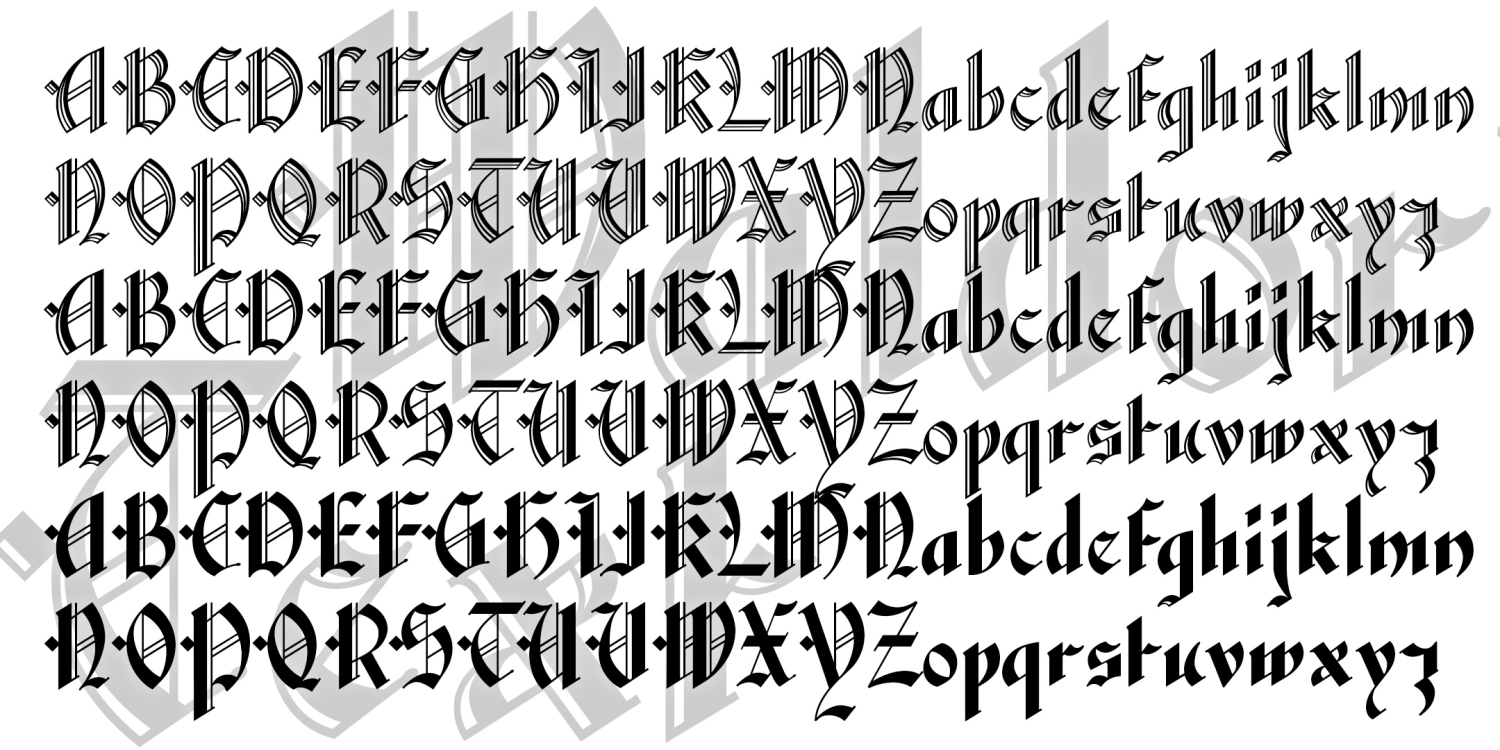
Waldorf Text
Waldorf Text was inspired by a classic "lost" font of the same name. An elegant blackletter font with details that spell luxury. Waldorf Text was first produced by Barnhart Brothers and Spindler Type Foundry in 1914. In Regular, Bold and Black weights, which differ in the amount of lines and open space.